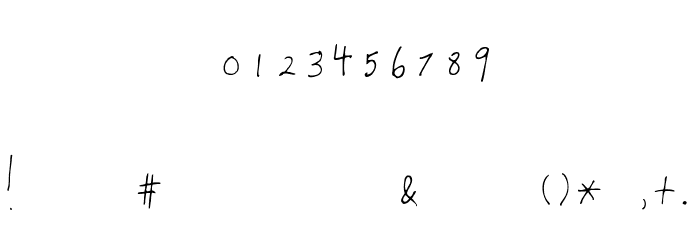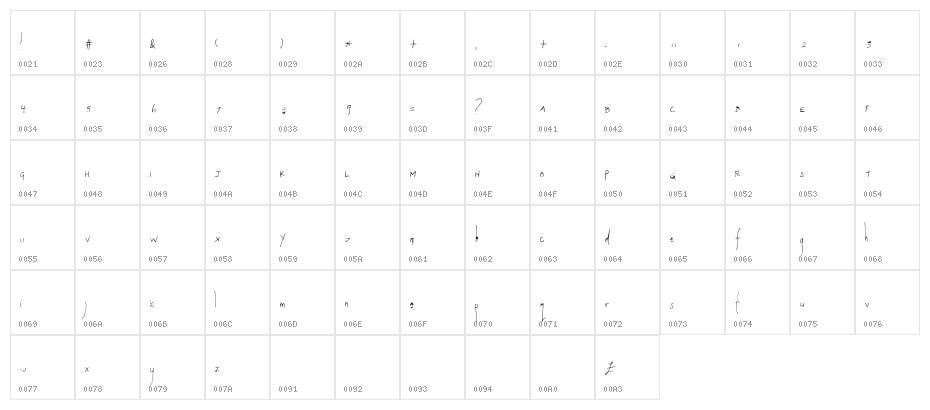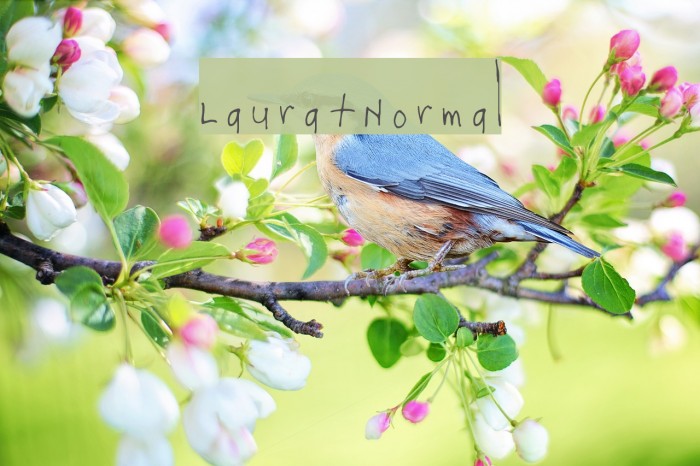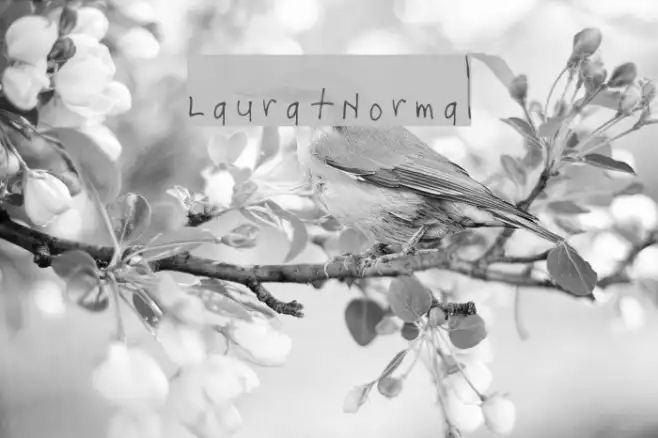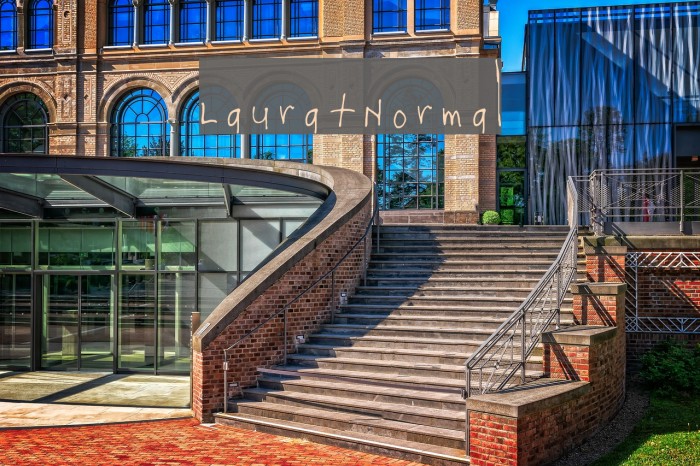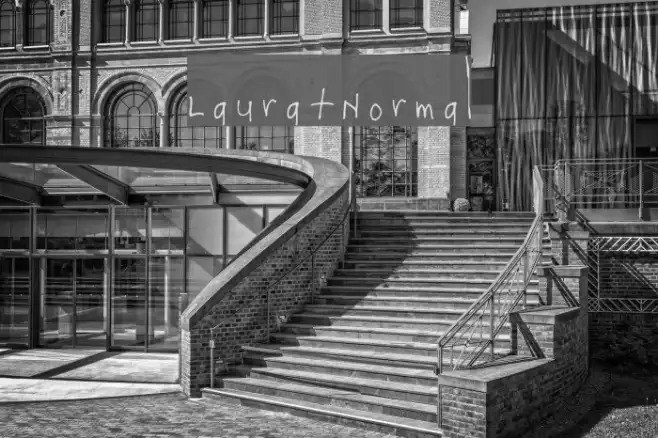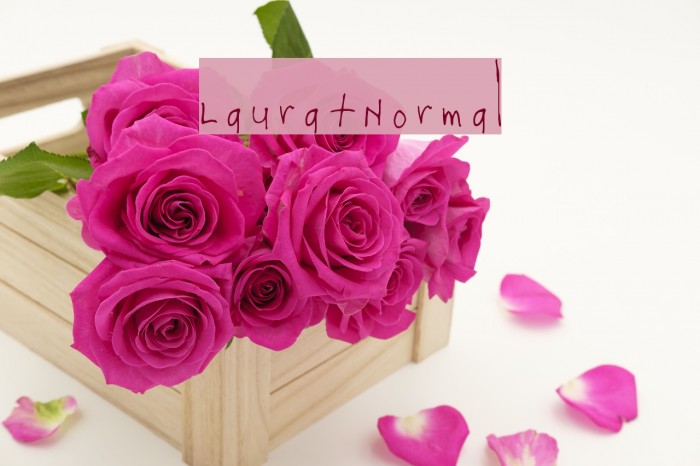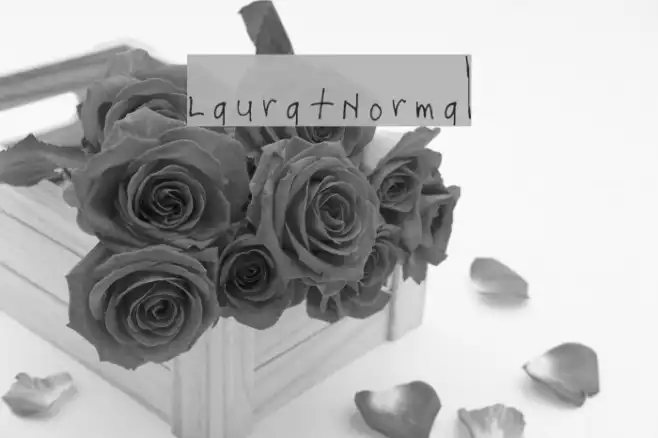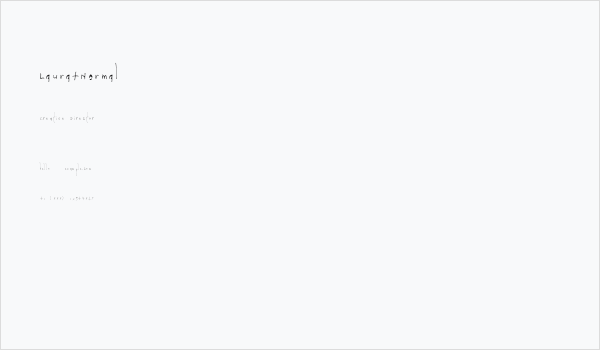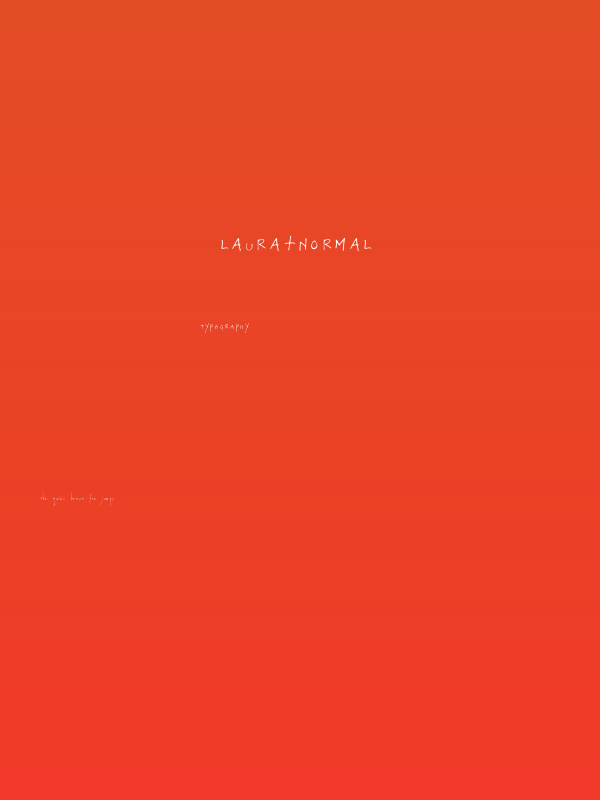
Laura-Normal Font
Laura-Normal Description
This font features a playful and whimsical handwritten style, characterized by its irregular strokes and slightly uneven baseline. The letters exhibit a casual, organic feel, with a mix of thin and slightly thicker lines that give it a dynamic appearance. The uppercase letters are distinct with a quirky charm, while the lowercase letters maintain a consistent flow, adding to the font's approachable and friendly nature. The numerals are clear and legible, matching the overall style. Special characters are included, maintaining the same playful aesthetic.
| Use Case | Logos, Invitations, Creative projects |
| Proposed Projects | Ideal for greeting cards, personal branding, children's books, and creative projects requiring a friendly touch. |